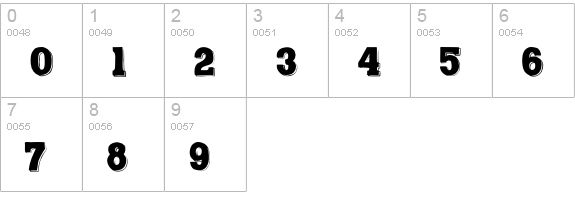
Bold Pressing H1 Font Details
Bold Pressing H1 is a strong, high-contrast variant in the Bold typeface family \xE2\x80\x94 well suited to headlines, attention-grabbing titles, and strong calls-to-action.
Bold Pressing H1 font is a striking and powerful typeface that commands attention with its bold and expressive design. With its strong, thick strokes and clean lines, this font is perfect for making a statement in headlines, titles, and other prominent text. The boldness of Bold Pressing H1 font exudes confidence and strength, making it an ideal choice for projects that require a bold and impactful look. One of the best features of Bold Pressing H1 font is that it is available for free download at FontsMarket.com. This means you can easily access and use this impressive font for your personal or commercial projects without any cost. Whether you're creating posters, logos, banners, or any other design work, Bold Pressing H1 font is sure to make a bold statement and leave a lasting impression on your audience. Download Bold Pressing H1 font today and unleash its boldness in your designs!